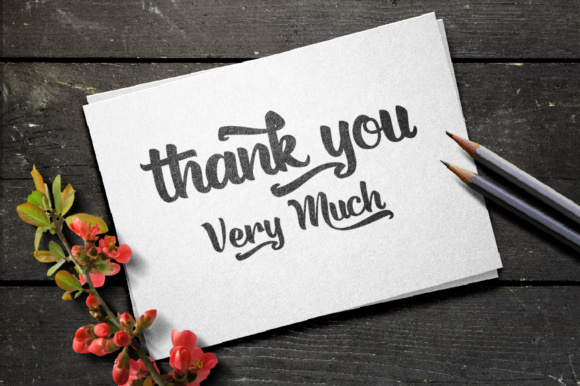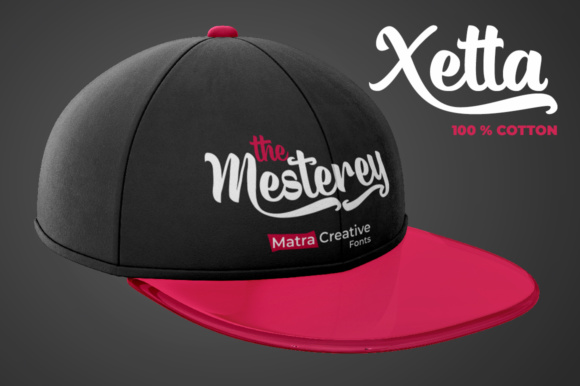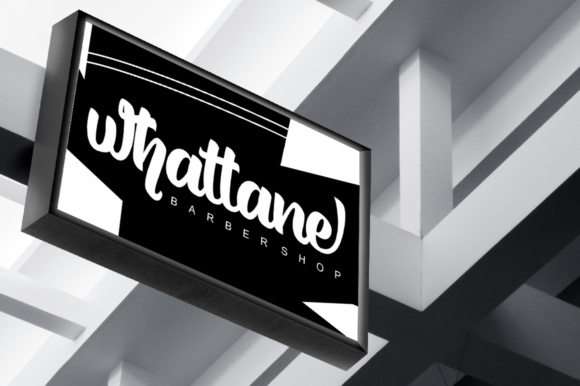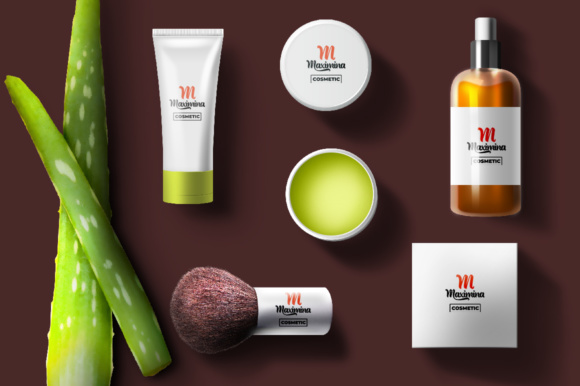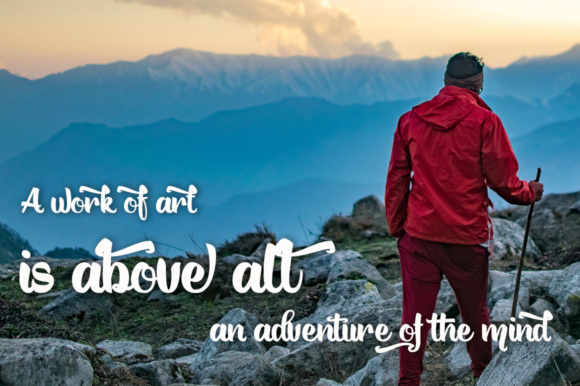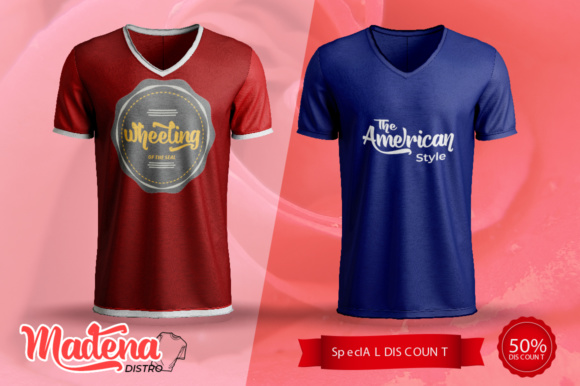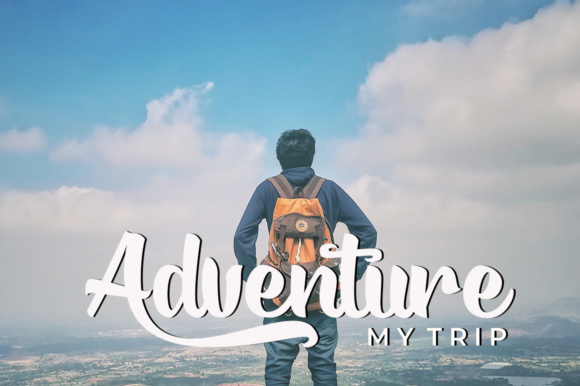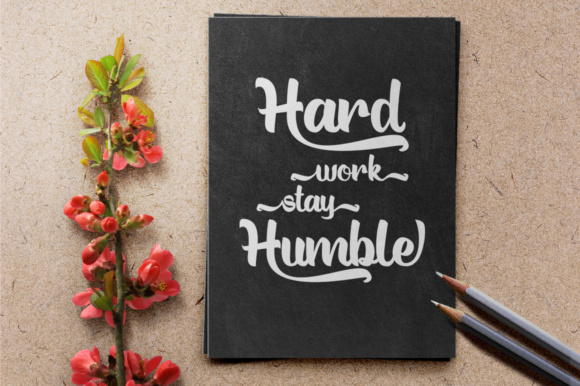
Aceleraty Font
About Aceleraty Font
The Aceleraty is a handwritten brush font based on the expression of real handwriting. It lets you transform type into an exciting and beautiful piece of work. Its hand lettered look adds a real human touch to designs and comes along with a lot of loving details.